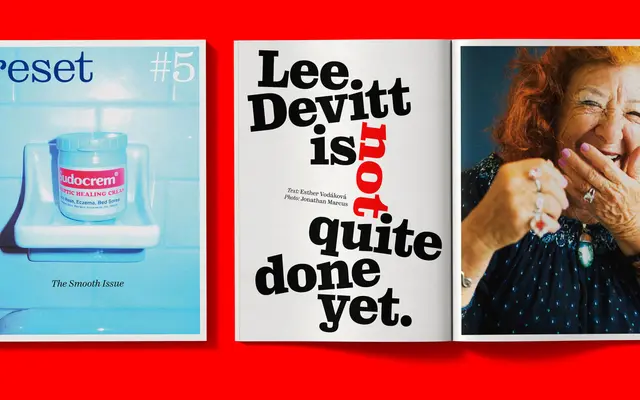
Reckham
A self-described mutant Scotch Roman that runs four contrast series from near-Didone to near-monoline Egyptian, each across six weights with matching italics and variable font support.
Starting from Century Expanded as a reference and drifting toward Clarendon at heavier weights, Reckham ended up somewhere stranger: unbracketed serifs, eccentric details and four discrete contrast series totalling 48 styles. The №1 Series sits close to Didone at its lightest and Fat Face at its heaviest; the №4 Series reads typewriterish in lighter cuts and Egyptian in darker ones. Variable roman and italic fonts are included in the complete family, allowing contrast and weight to be dialled continuously between those poles.
Described as a mutant Scotch Roman with origins in Century Expanded, the family spans from near-Didone contrast in the №1 Series to near-monoline Egyptian in the №4 Series, with unbracketed serifs and eccentric detailing throughout.